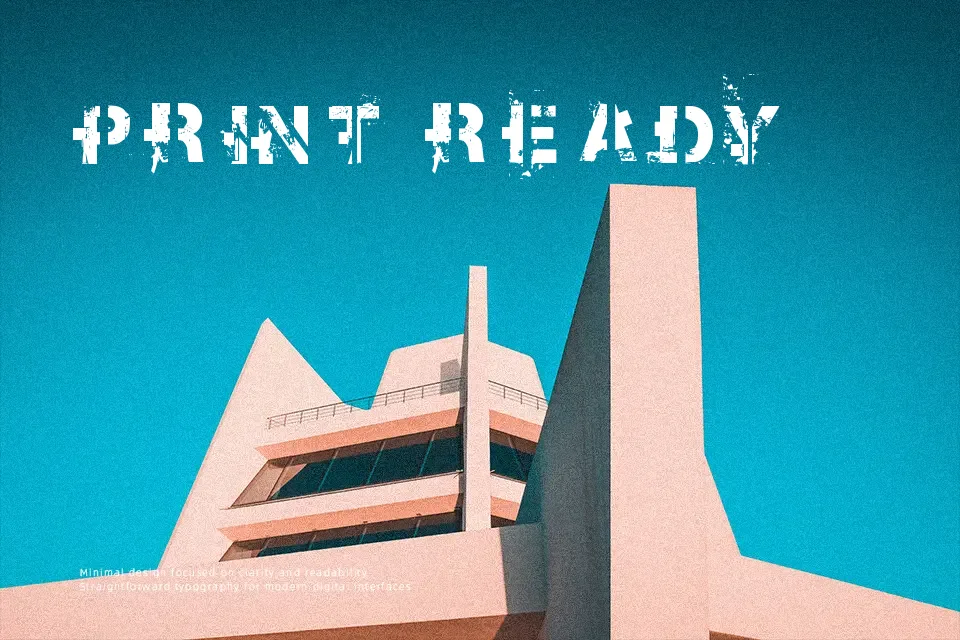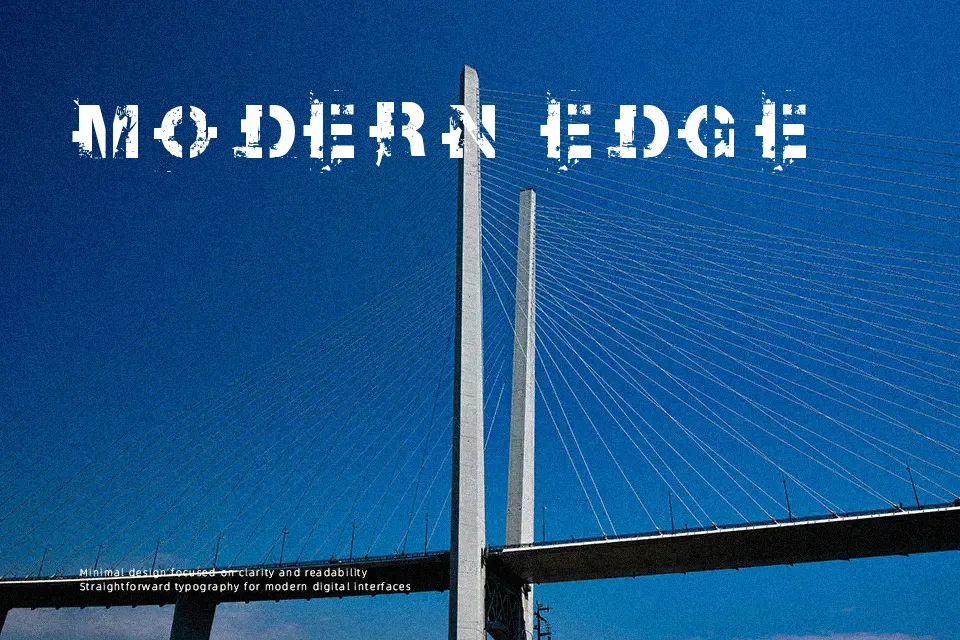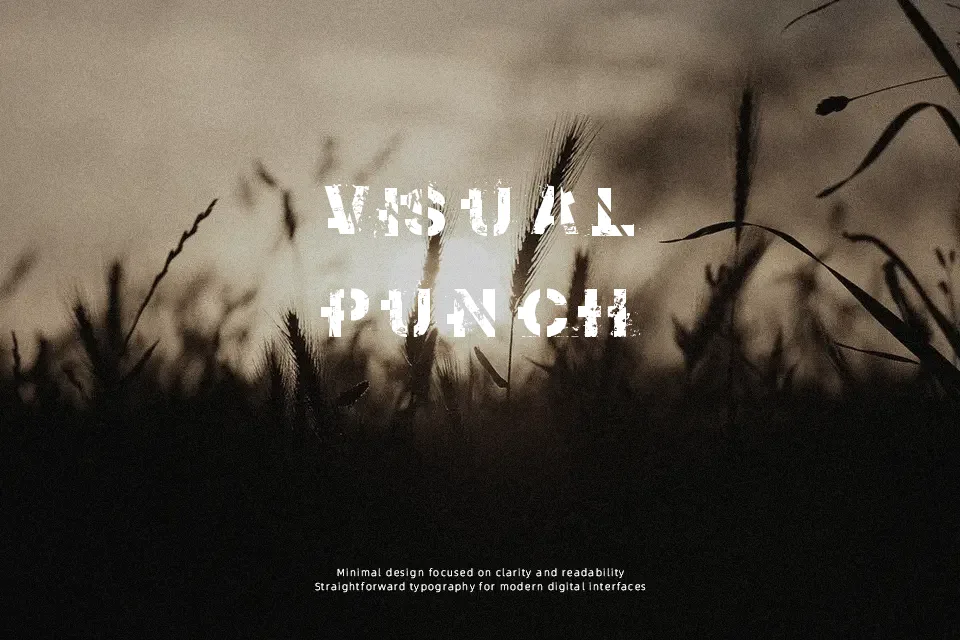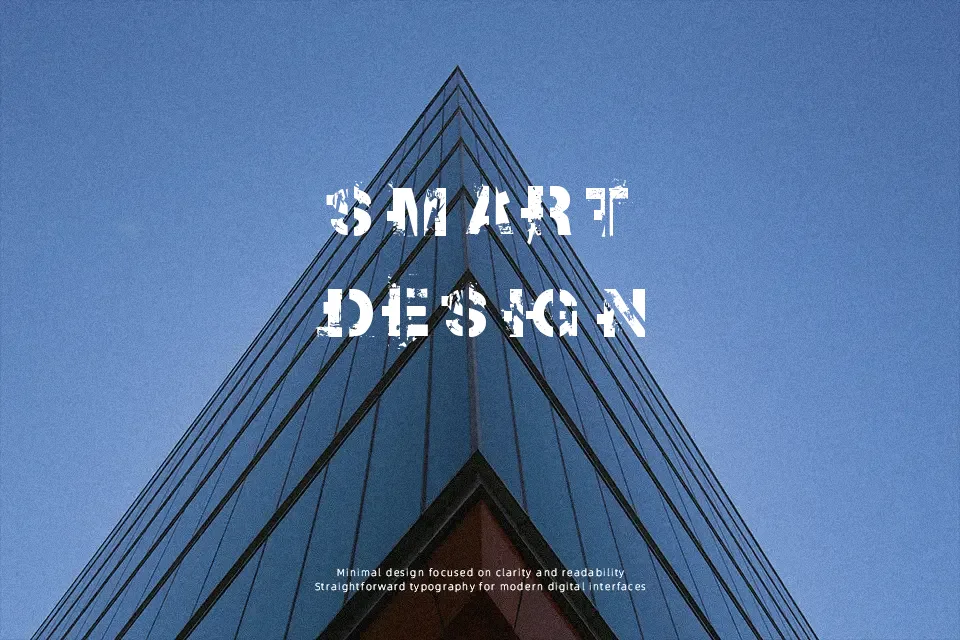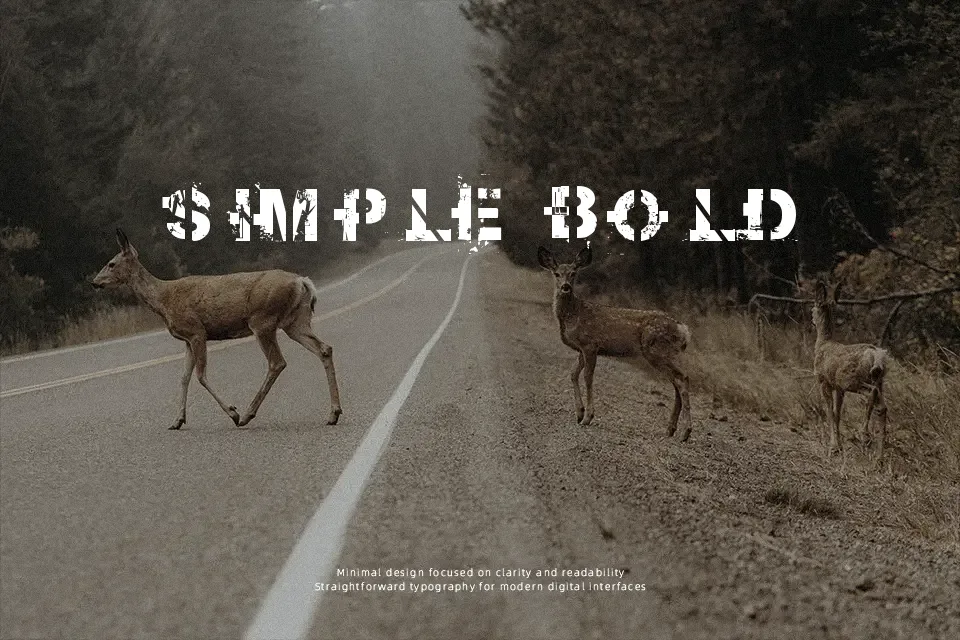
Soot Break Font
Soot Break uses bold, uppercase letterforms interrupted by irregular breaks and rough missing sections. The strokes appear heavy and mostly even in weight, while the distressed texture creates a fragmented silhouette with strong visual contrast against clean layouts. Its broad forms hold attention in large headlines, posters, and cover-style graphics, where the damaged edges remain visible. Spacing appears practical for short words rather than dense text blocks. The typeface delivers its strongest effect at display sizes; the broken details make smaller text and extended reading noticeably harder to follow.
Best For: music posters,horror film titles,grunge apparel graphics,album cover headlines
Perfect for advertising, film, and headline, with a dark and decorative style.